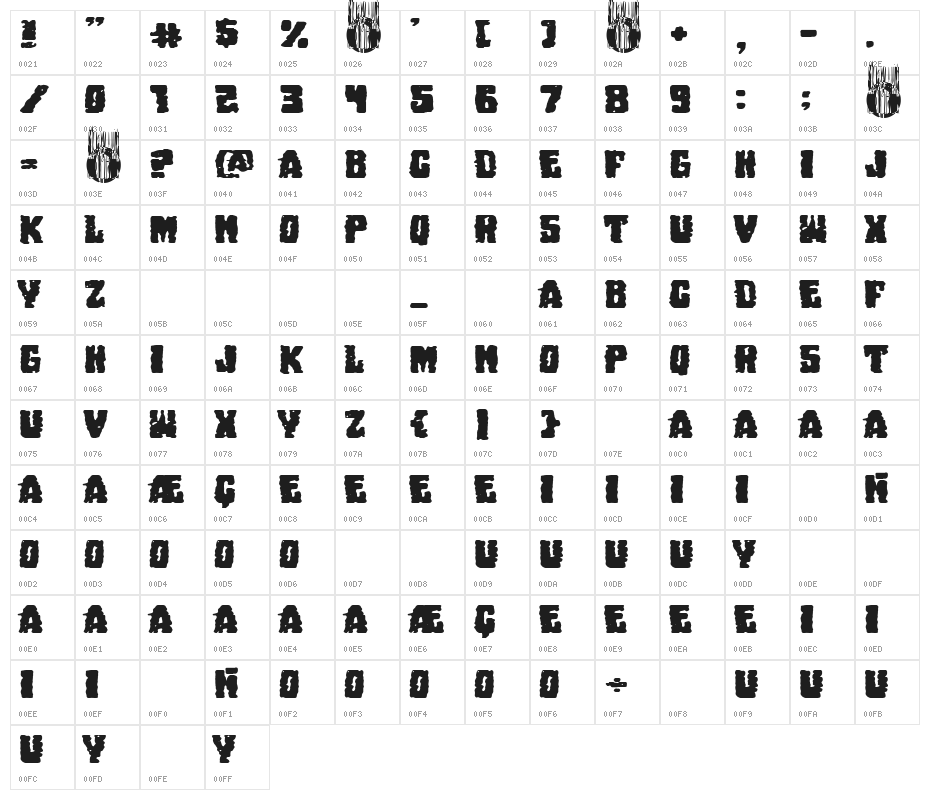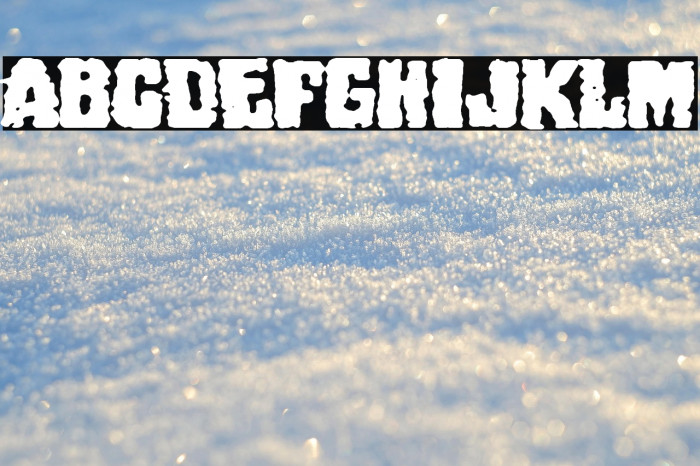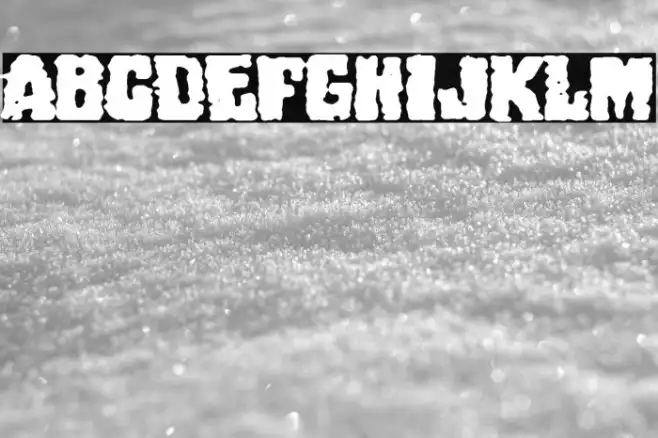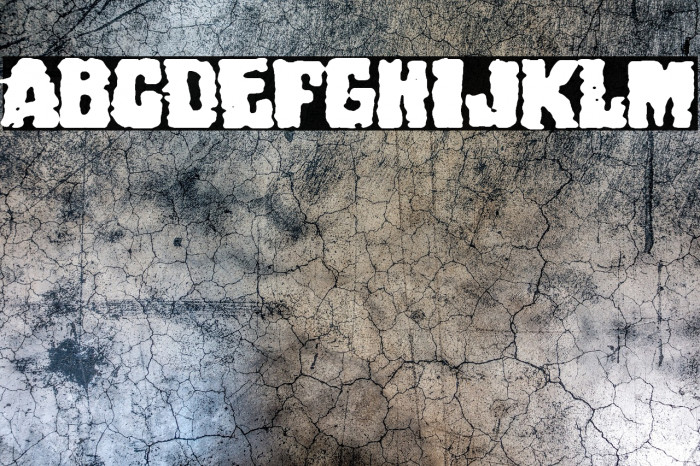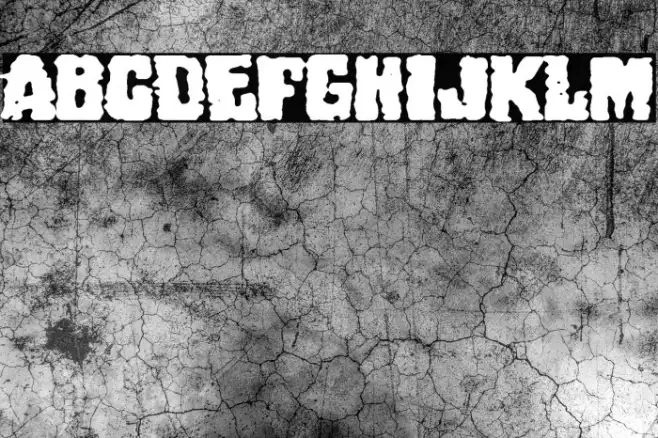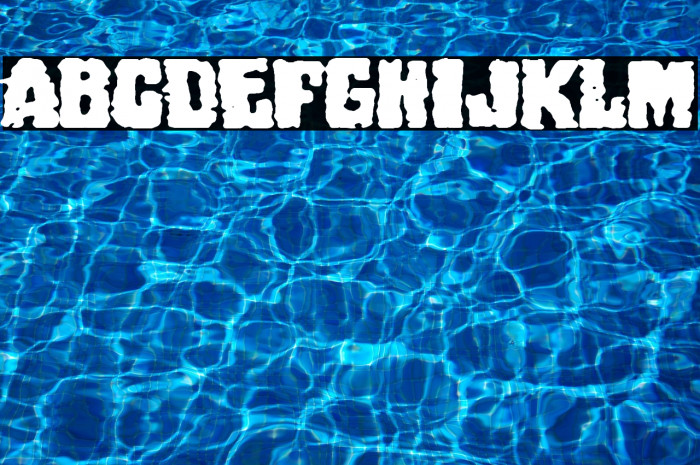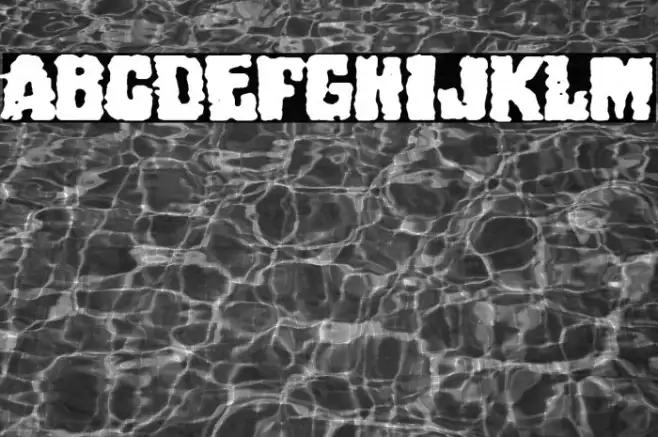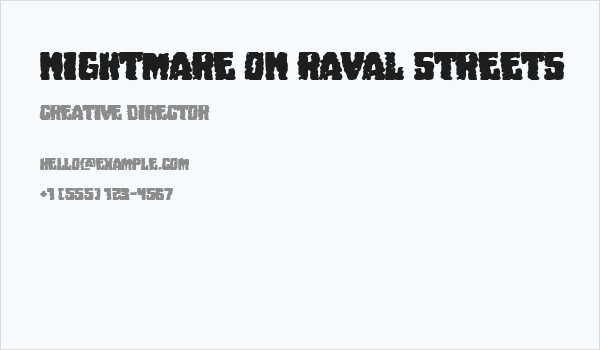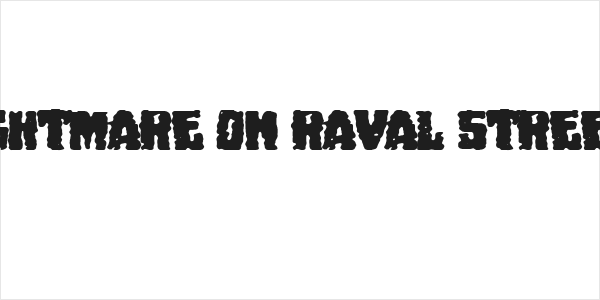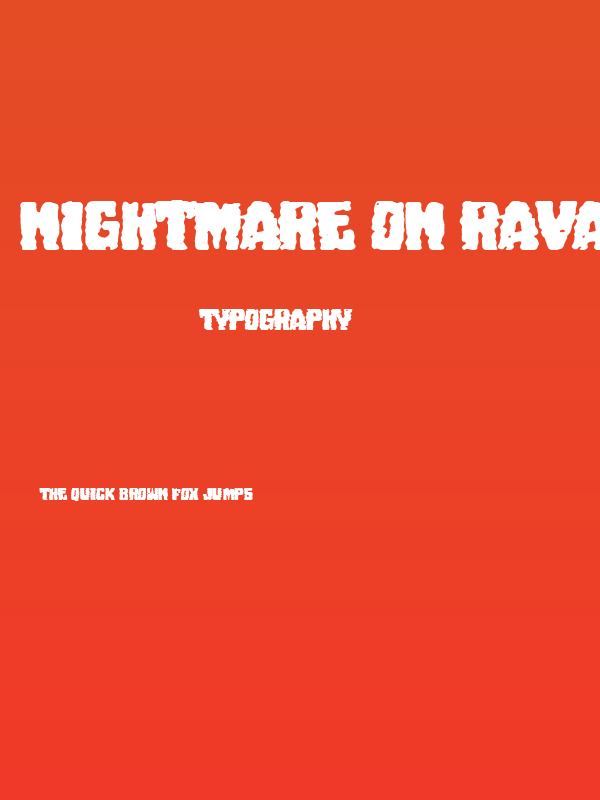
Nightmare on Raval Streets Font
Nightmare on Raval Streets Description
This font features a bold, distressed style with a rugged and uneven appearance, reminiscent of horror or thriller themes. The characters are heavily textured, giving them a worn and gritty look that adds a sense of mystery and edginess. The uppercase and lowercase letters maintain a consistent weight, with jagged edges and irregular shapes that create a sense of chaos and unpredictability. The numbers and special characters follow the same design principles, ensuring a cohesive and thematic appearance across all glyphs. This font is ideal for projects that require a dramatic and impactful visual presence.